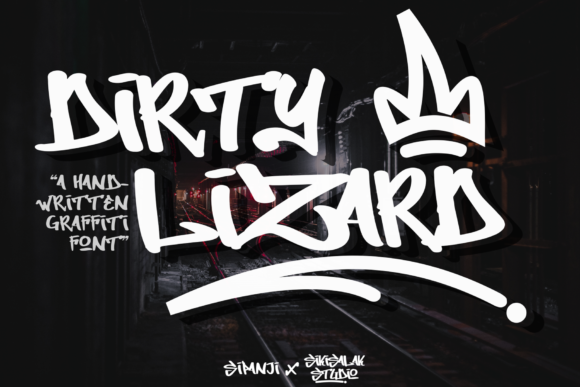
Introducing Dirty Lizard Graffiti Font, a captivating display font that will take your design projects to new heights! Created by the talented sipanji figuree, this font is perfect for anyone looking to make a bold statement and leave a lasting impression.
With its unique graffiti style, Dirty Lizard adds an edgy and urban touch to any design. Whether you're working on branding, headings, wedding designs, invitations, signatures, logos, labels, or any other creative project, this font is sure to make a statement.
The Dirty Lizard Graffiti Font is truly a game-changer. Its eye-catching and distinctive appearance will immediately grab your audience's attention and keep them engaged. Say goodbye to boring and generic fonts, and say hello to a font that stands out from the crowd.
But that's not all – Dirty Lizard is not just visually appealing, it's also highly versatile. Its wide range of applications makes it a must-have for any designer or creative professional. Whether you're working on a streetwear brand, an urban event, or simply want to add a touch of rebelliousness to your designs, Dirty Lizard is the perfect choice.
But what really sets Dirty Lizard apart is its ability to evoke emotions. This font carries a sense of urban energy, rebellion, and creativity. It sparks excitement, ignites curiosity, and adds a touch of attitude to your projects. It's not just a font – it's a statement.